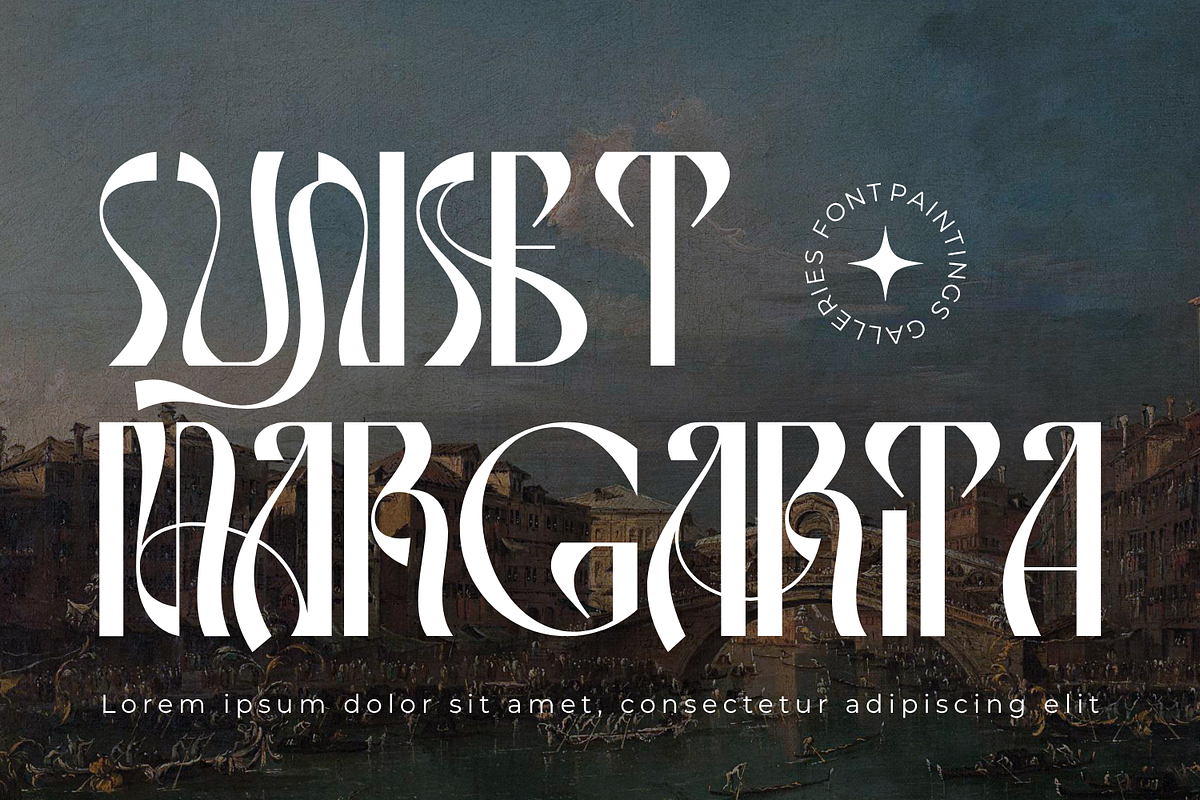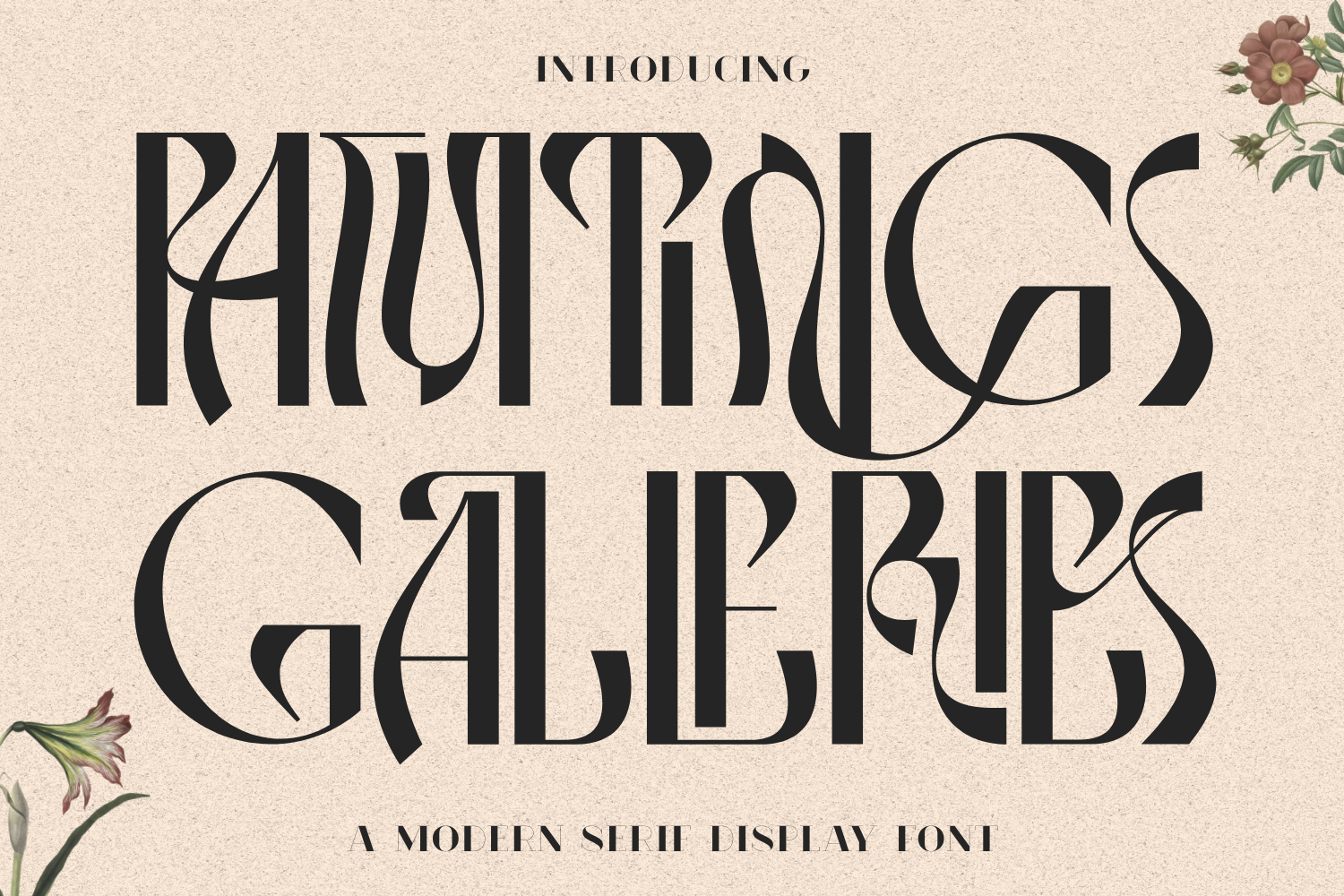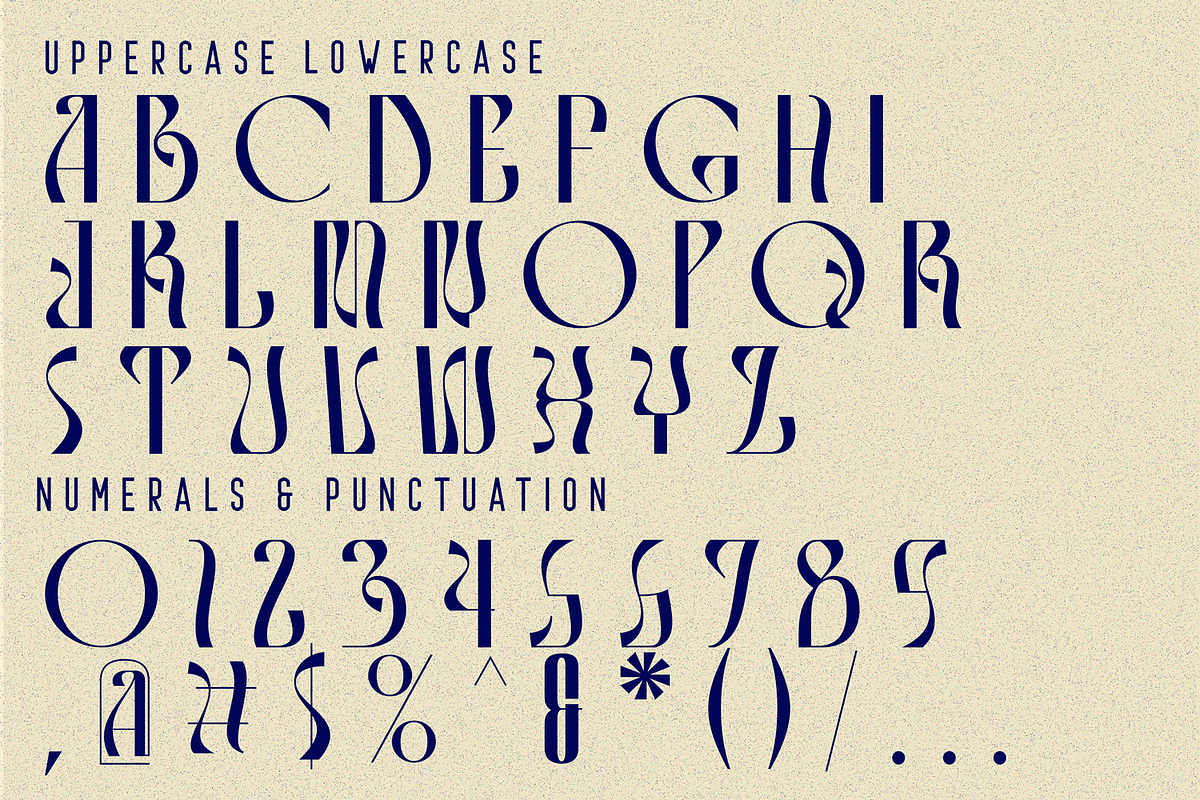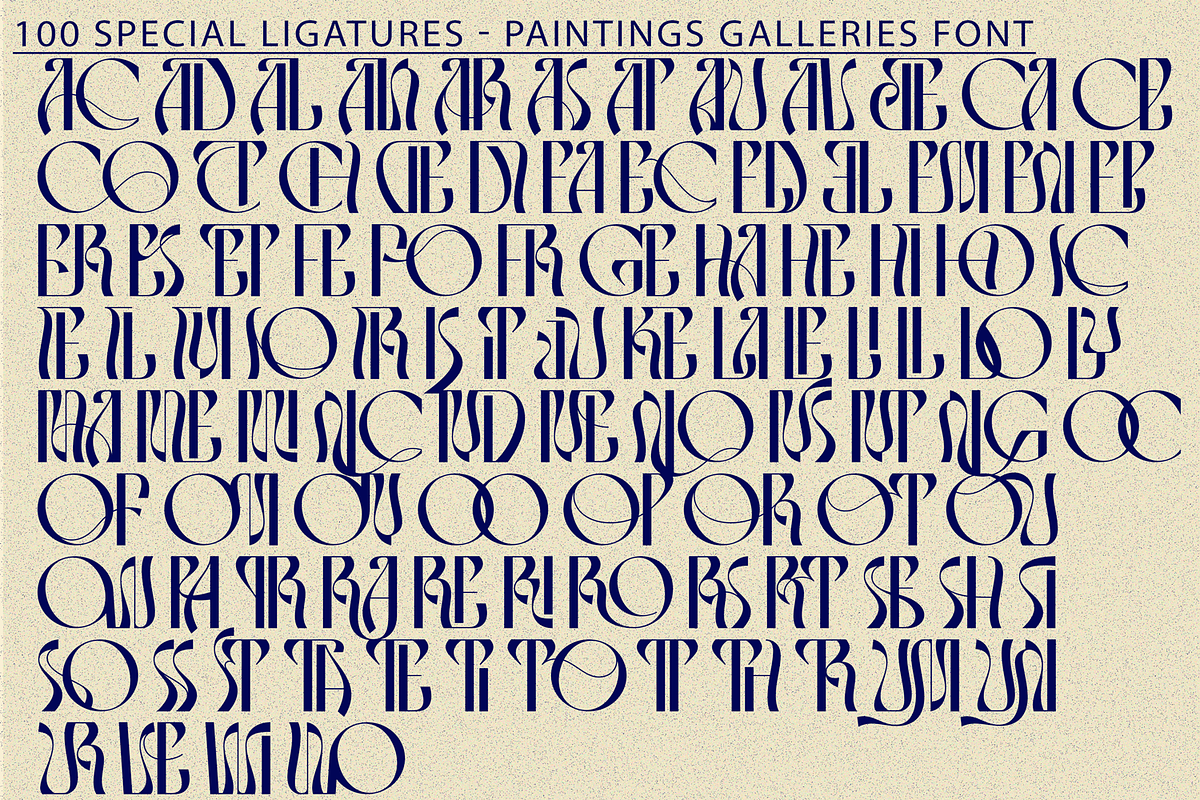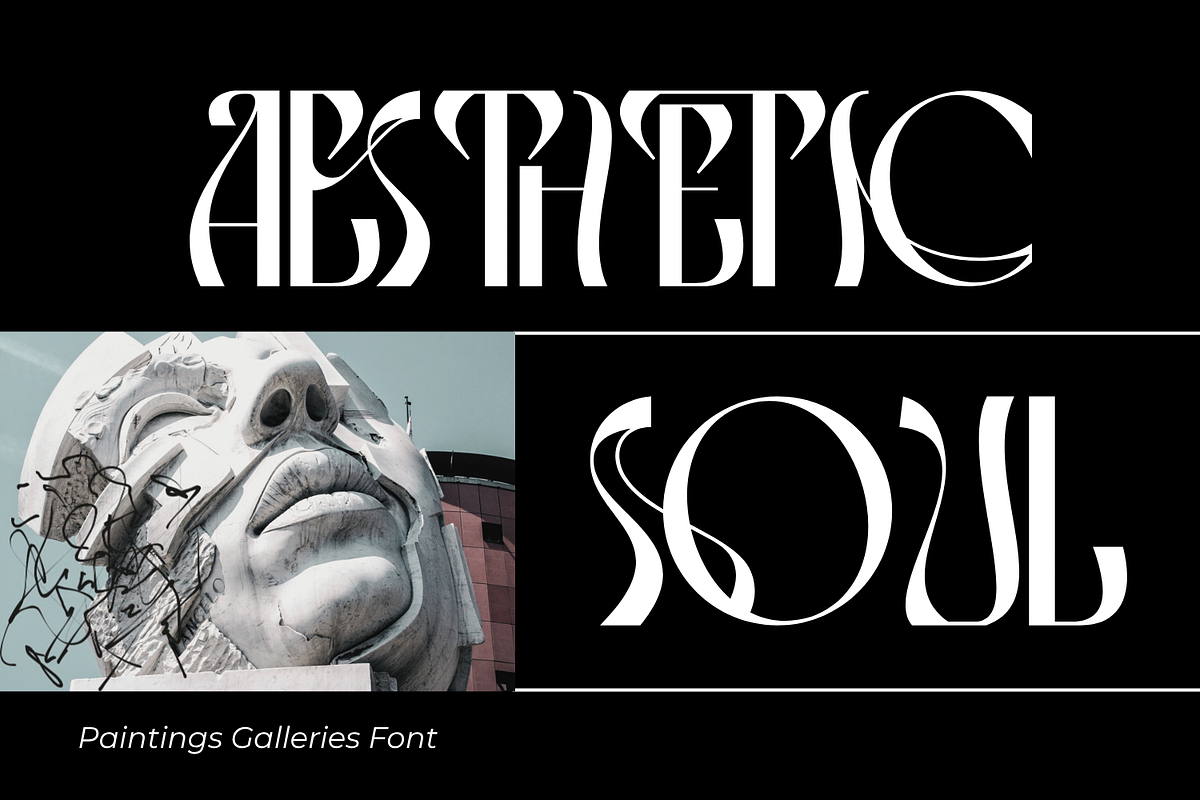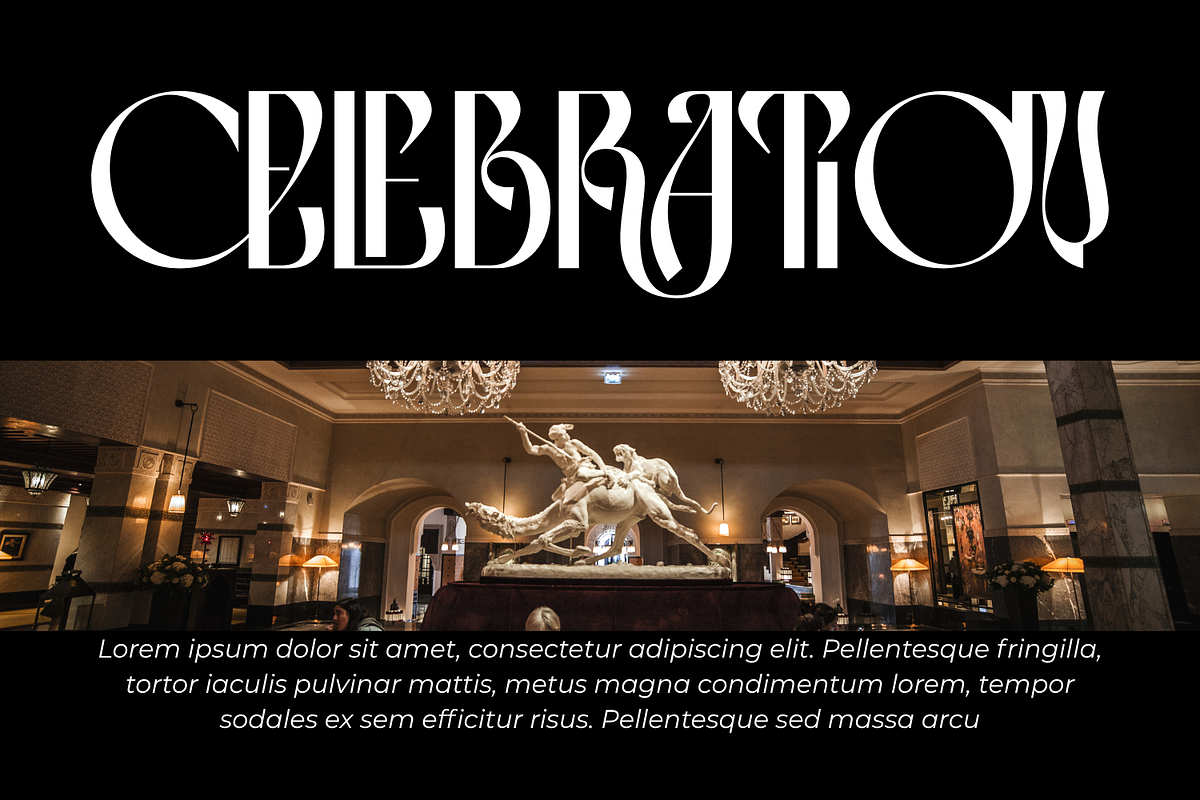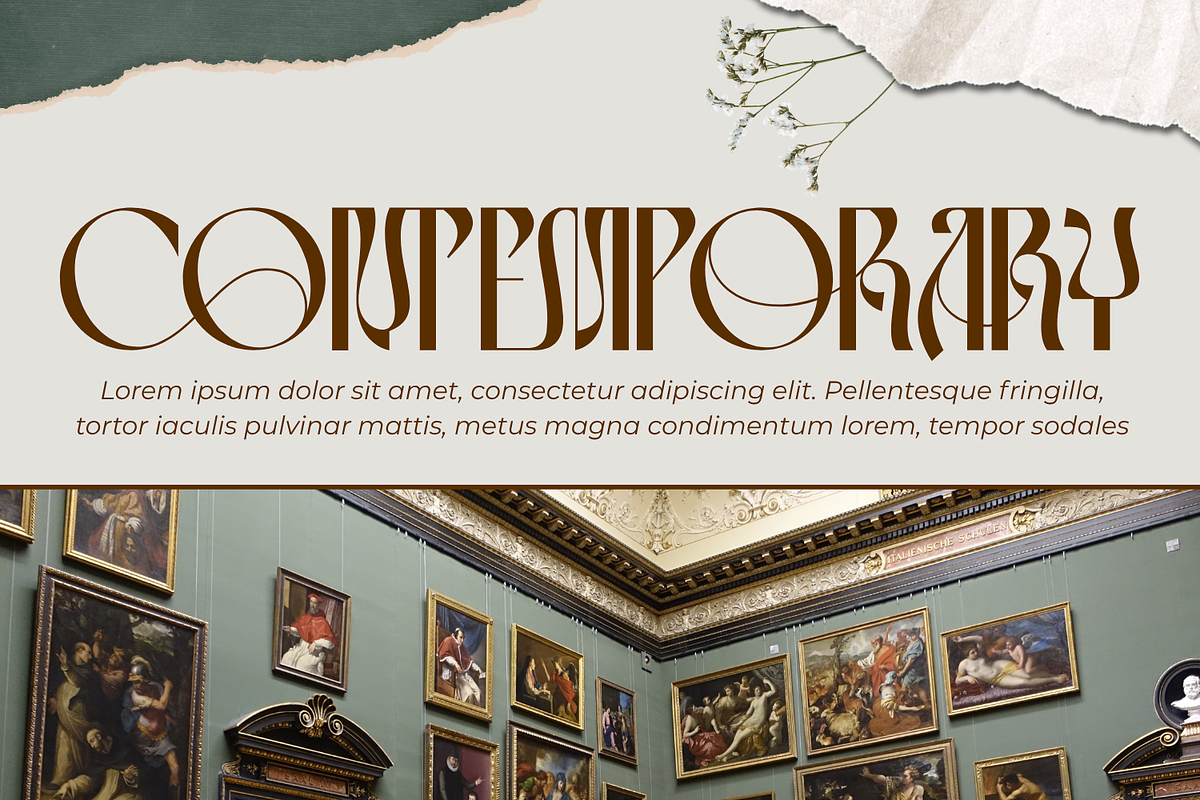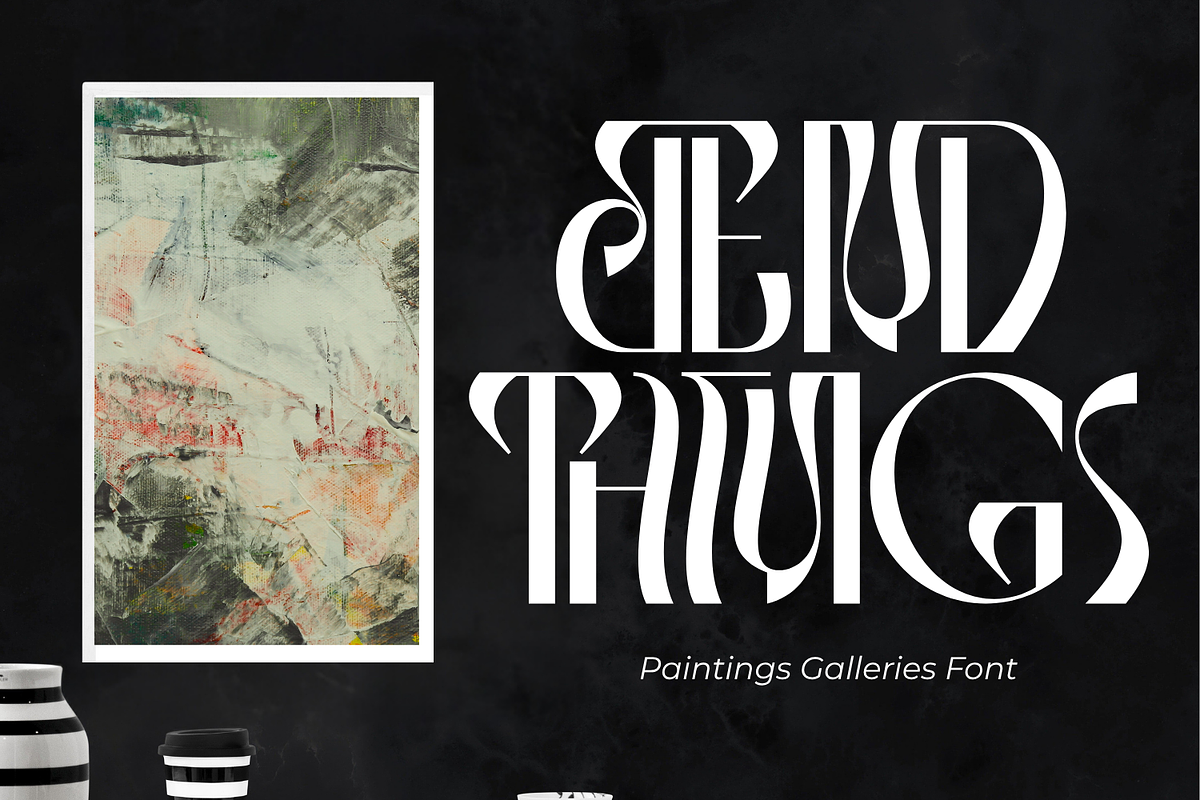
Paintings Galleries Font
Paintings Galleries Font, a refined Art Deco-inspired display font that embodies sophistication and modern elegance. With its tall proportions, flowing curves, and geometric details, this font is designed to bring a timeless artistic flair to your creative projects. Perfect for luxury branding, editorial titles, posters, packaging, and visual identity design, Paintings Galleries combines classical aesthetics with a contemporary edge.
- Uppercase Letters
- Approximately 100 Special Ligatures for elegant letter combinations
- Numerals & Punctuation for versatile design use
- Accented Characters supporting multiple languages
About 100 ligatures combined with Stylistic Alternates Font:
AC AD AL AN AR AS AT AU AV BE CA CE CH CO CT DE DI EA EC ED EE EL EM EN EP ER ES ET FE FO FR GE HA HE HI HO IE IC IL IN IO IR IS IT JU KE LA LE LI LL LO LY MA ME MI NC ND NE NG NO NT NS OC OF OM ON OO OP OR OT OU OW PA PR RA RD RE RI RO RS RT SE SH SI SO SS ST TA TE TH TI TO TR TT UM UN UR VE WI WO